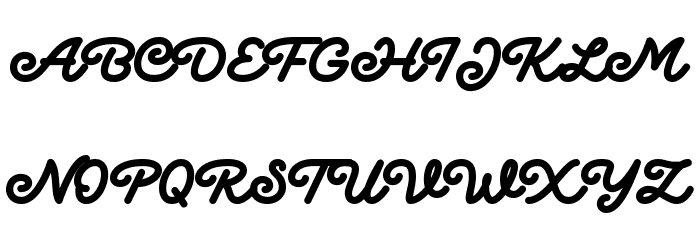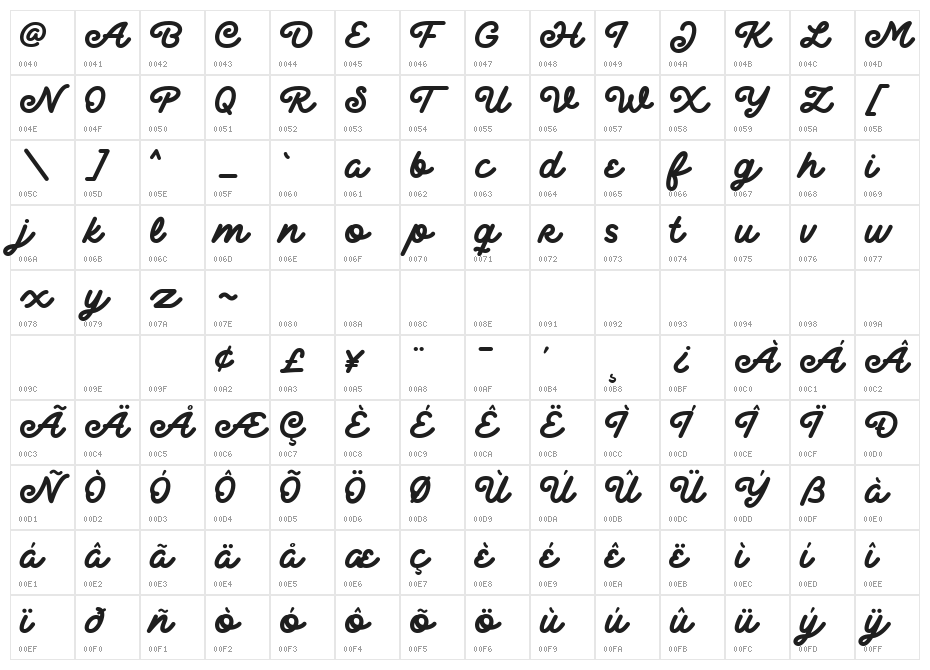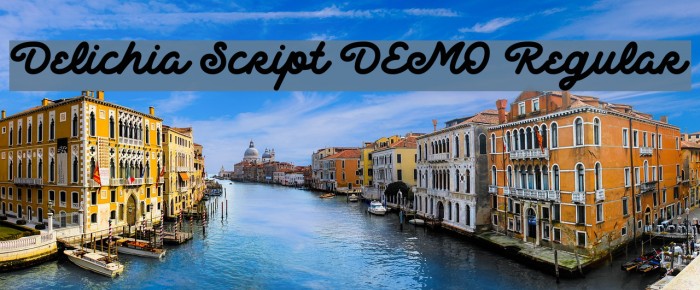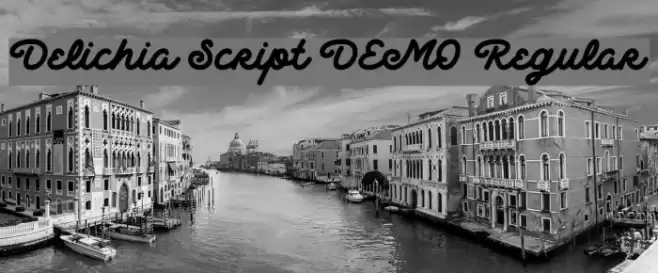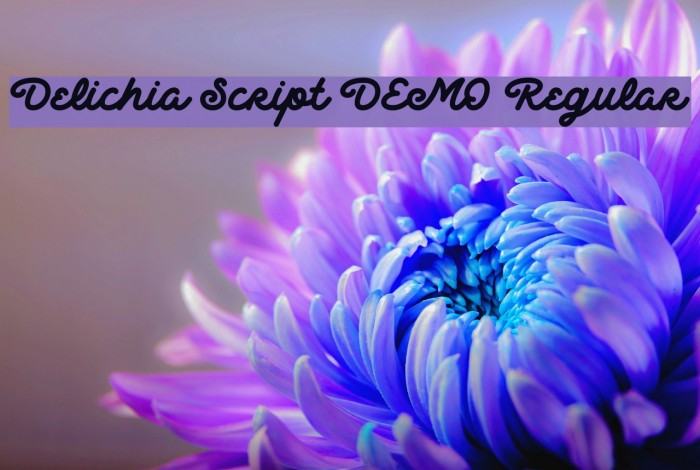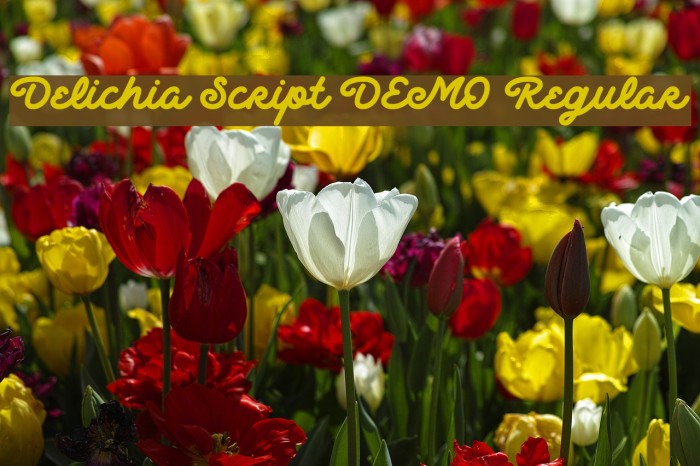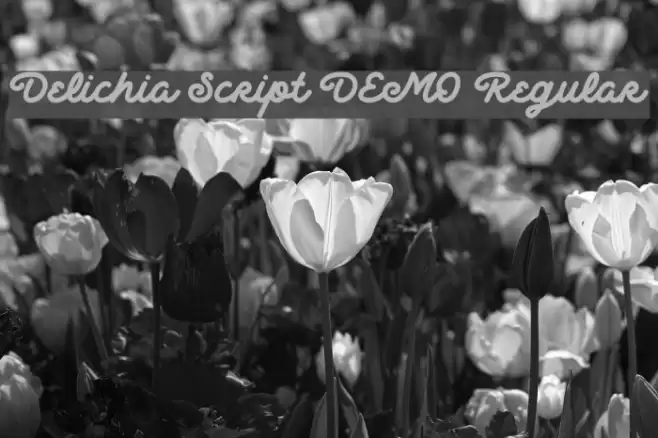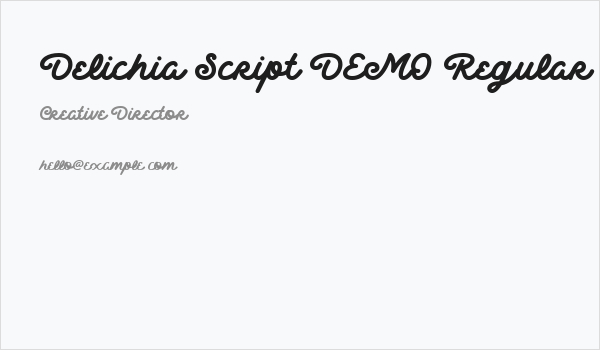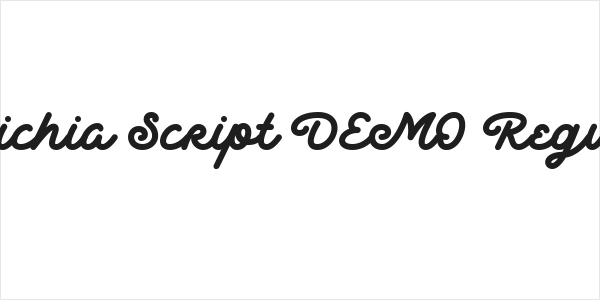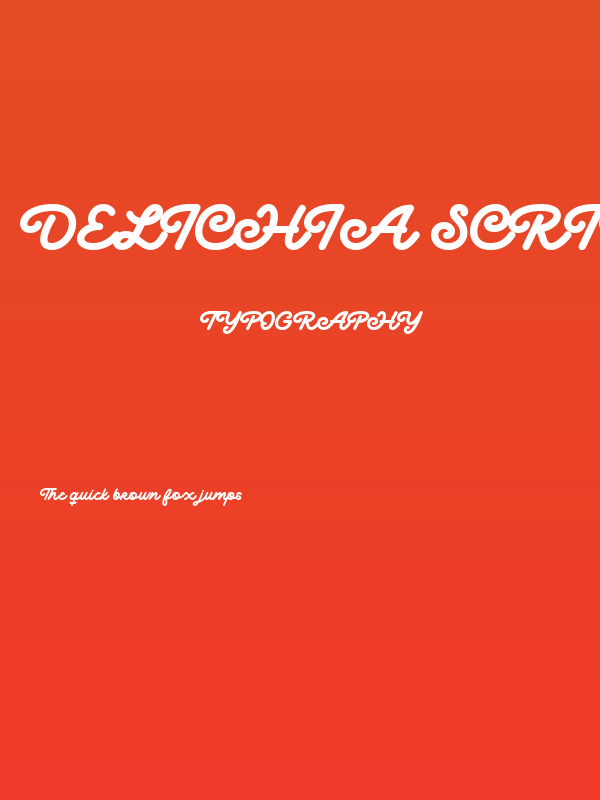
Delichia Script DEMO Regular Font
Delichia Script DEMO Regular Description
This font features a flowing, cursive style with elegant loops and swashes, giving it a sophisticated and artistic appearance. The characters are connected, creating a seamless and fluid look that is both decorative and legible. The uppercase letters are slightly more ornate, with additional flourishes, while the lowercase letters maintain a consistent and smooth flow. The overall design is balanced, with moderate stroke contrast that enhances readability without sacrificing its decorative nature. This script font exudes a sense of elegance and charm, making it suitable for a variety of creative applications.
| Proposed Projects | Ideal for wedding invitations, greeting cards, branding, and elegant signage. |